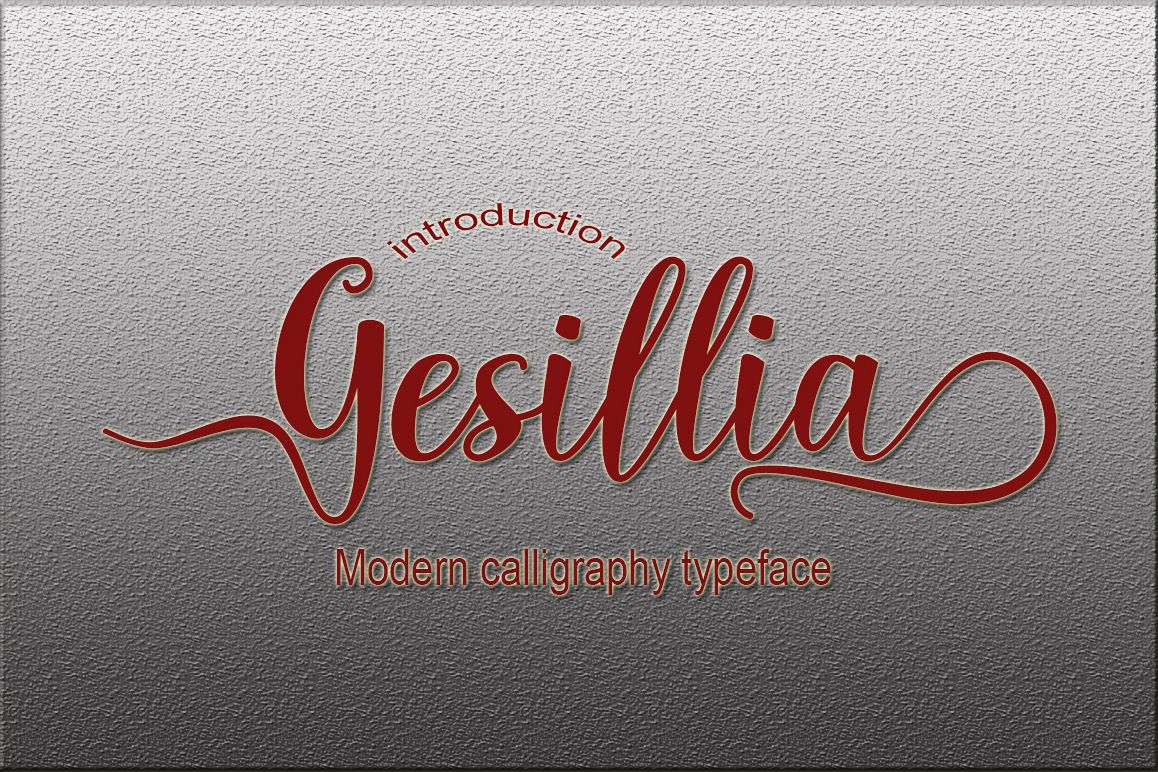
Gesillia Script Font
Gesillia-Regular
Gesillia is modern script font, every single letters have been carefully crafted to make your text looks beautiful. With modern script style this font will perfect for many different project ex: quotes, blog header, poster, wedding, branding, logo, fashion, apparel, letter, invitation, stationery, etc.